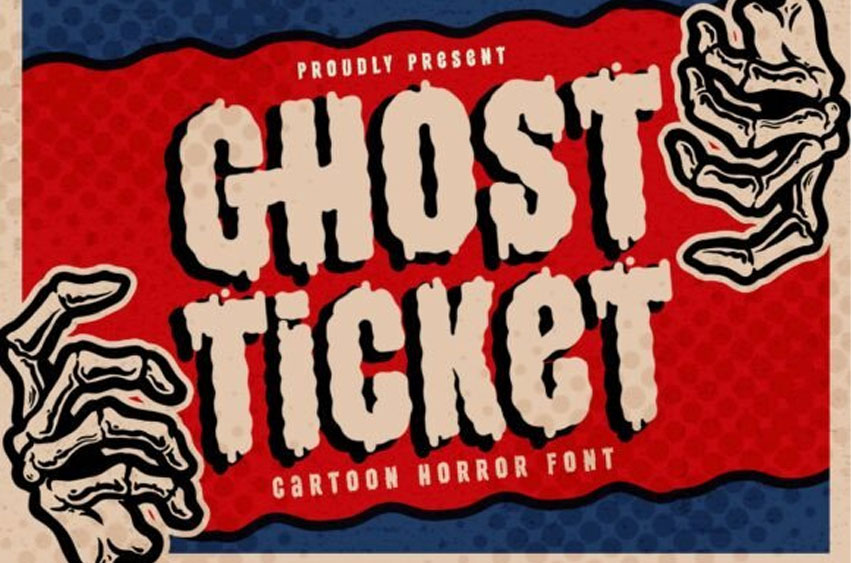
Ghostticket Regular Font is here for those of you looking for a fun and spooky horror cartoon-style font. Inspired by the retro and classic vibes of old-school horror comic covers and headlines, this font mixes in a playful hand-drawn look with just the right touch of drippy style. It’s bold, quirky, and perfect for unleashing your creativity.
Whether you’re designing a logotype, book cover, poster, invitation, gift card, Halloween greeting card, merchandise, or packaging label, Ghost Ticket makes your project stand out with its easy-to-read characters and playful, bold energy.
Bring your spooky, retro-inspired designs to life with Ghost Ticket — the perfect font for any project that needs a mix of bold, fun, and eerie vibes.
Ghost Ticket font is also PUA-encoded, ensuring effortless access to all glyphs, swashes, and alternate characters to help you customize your creations with ease.